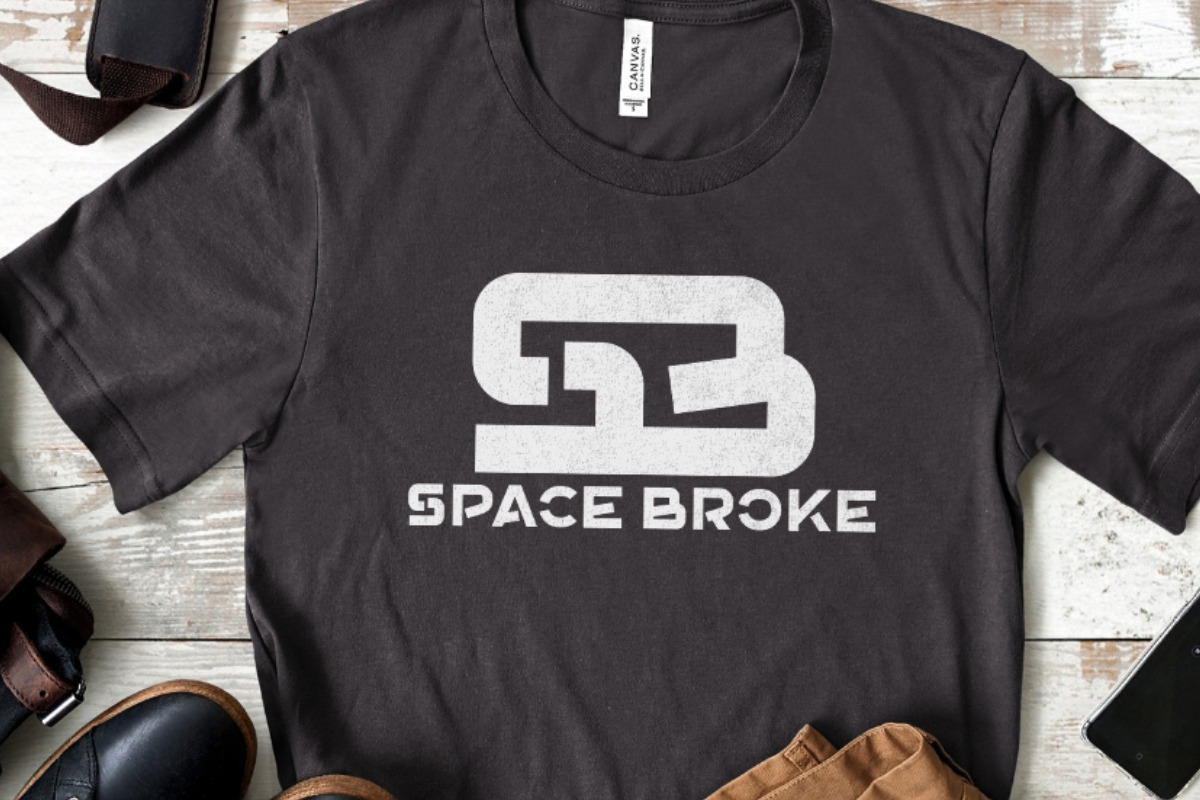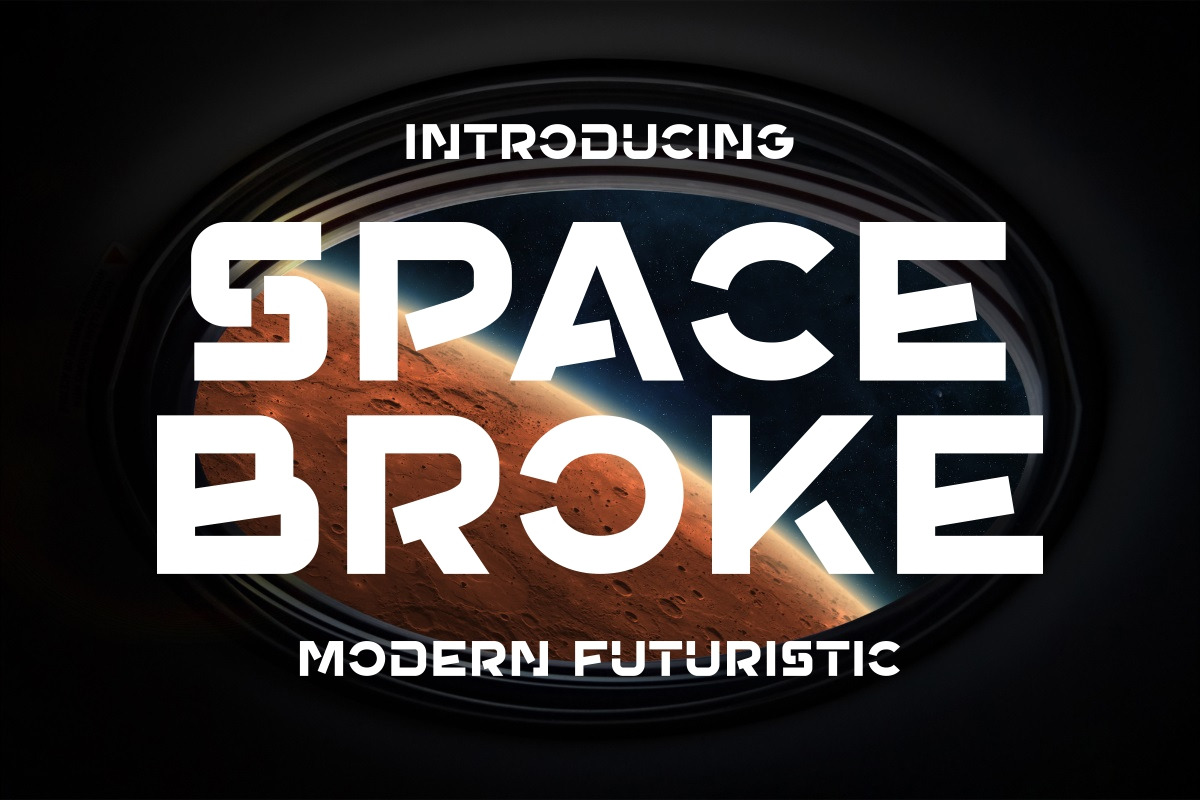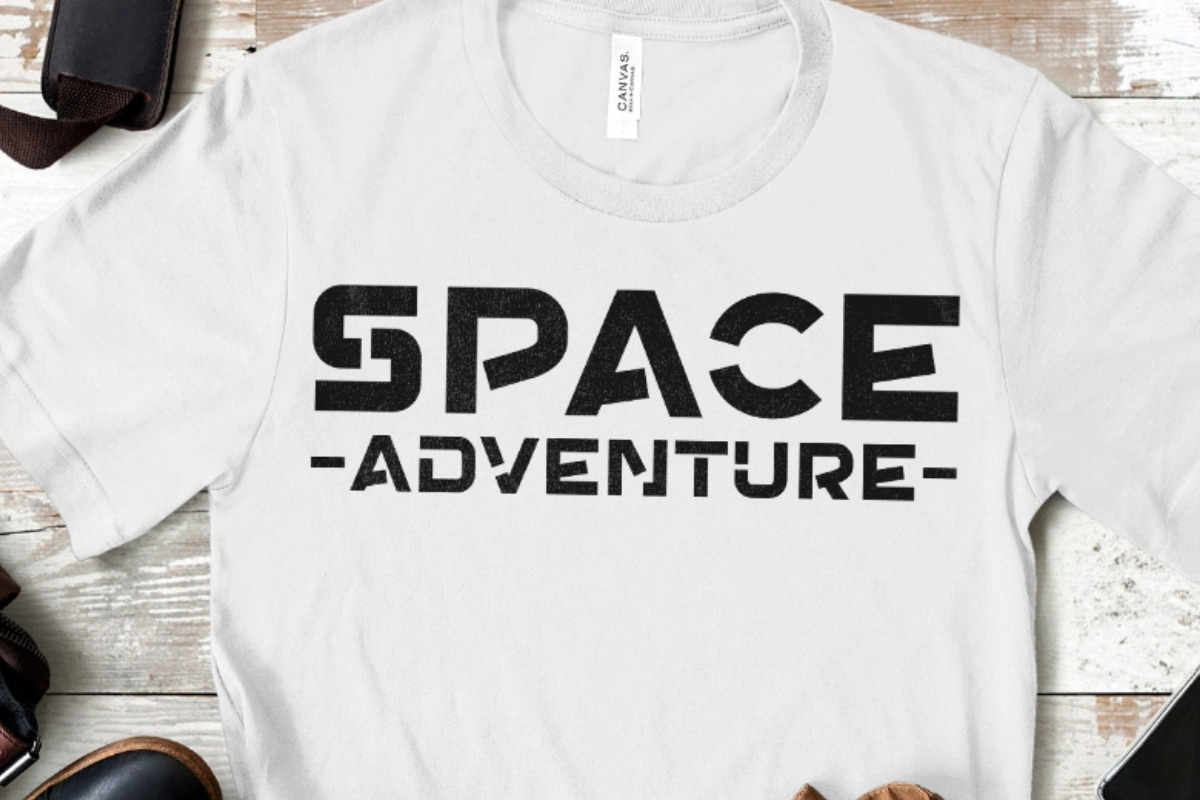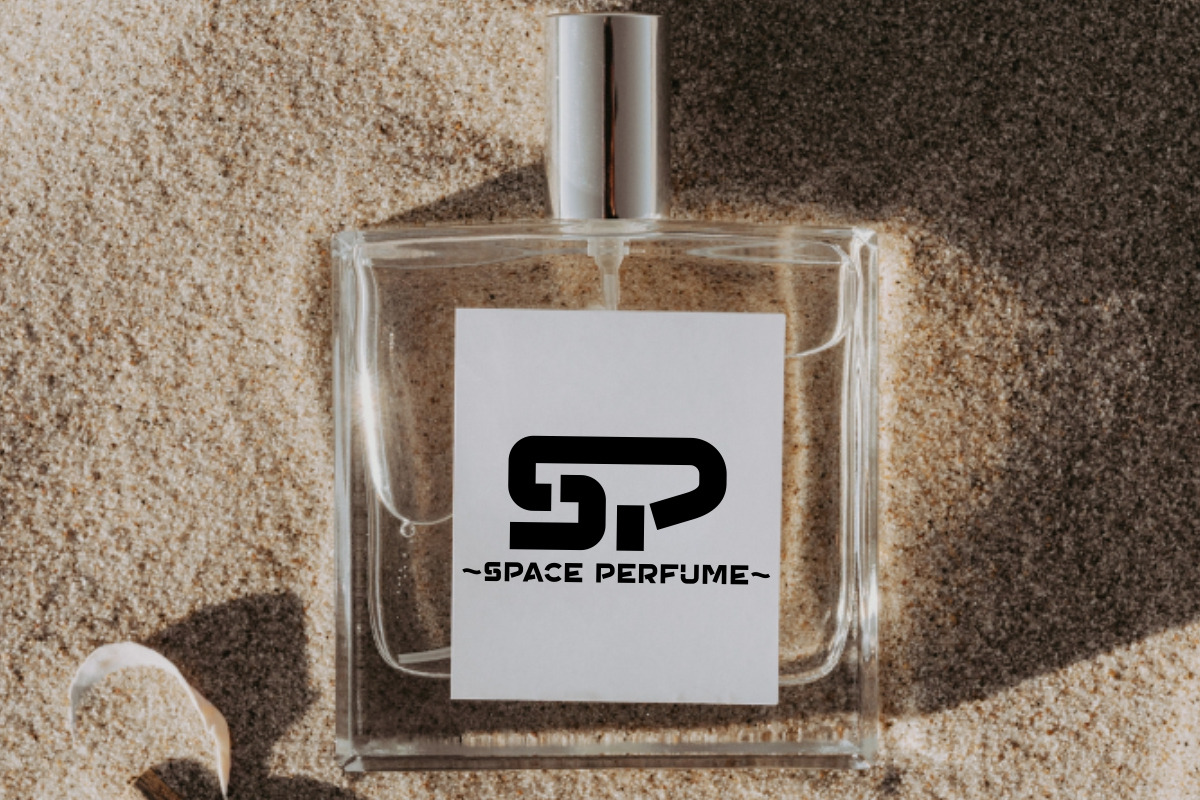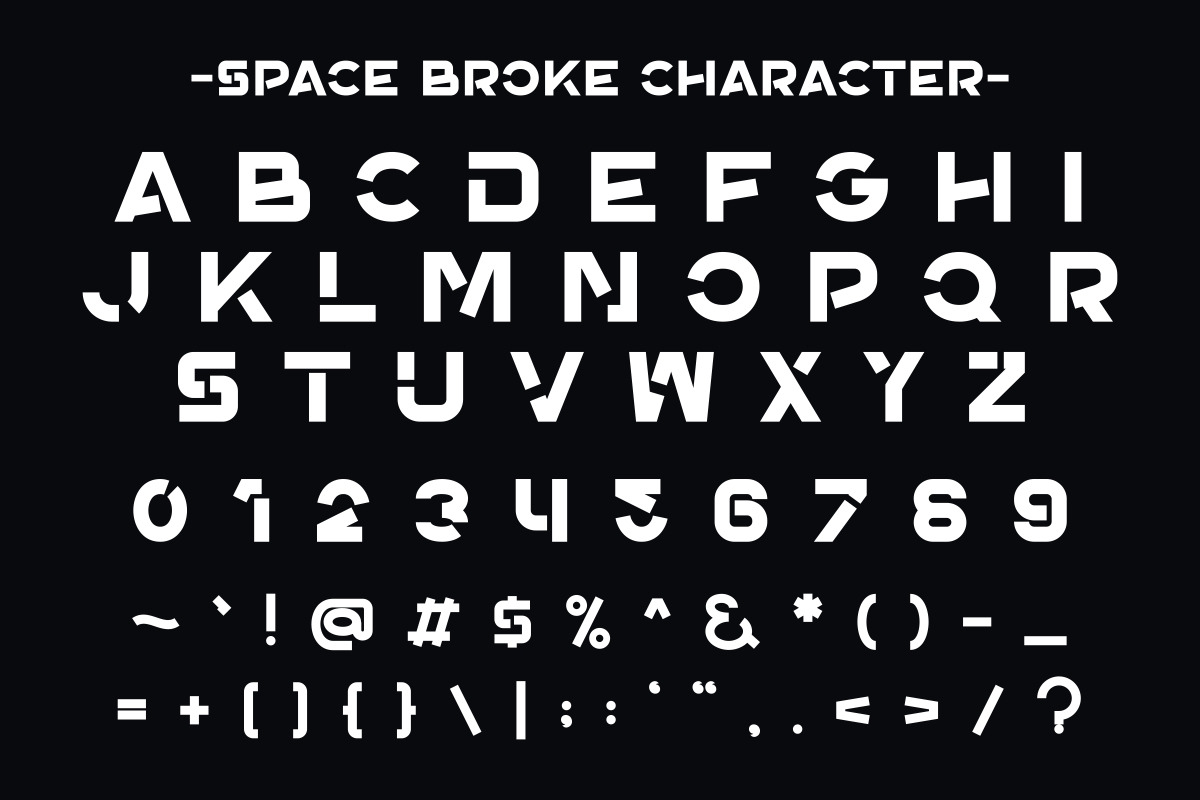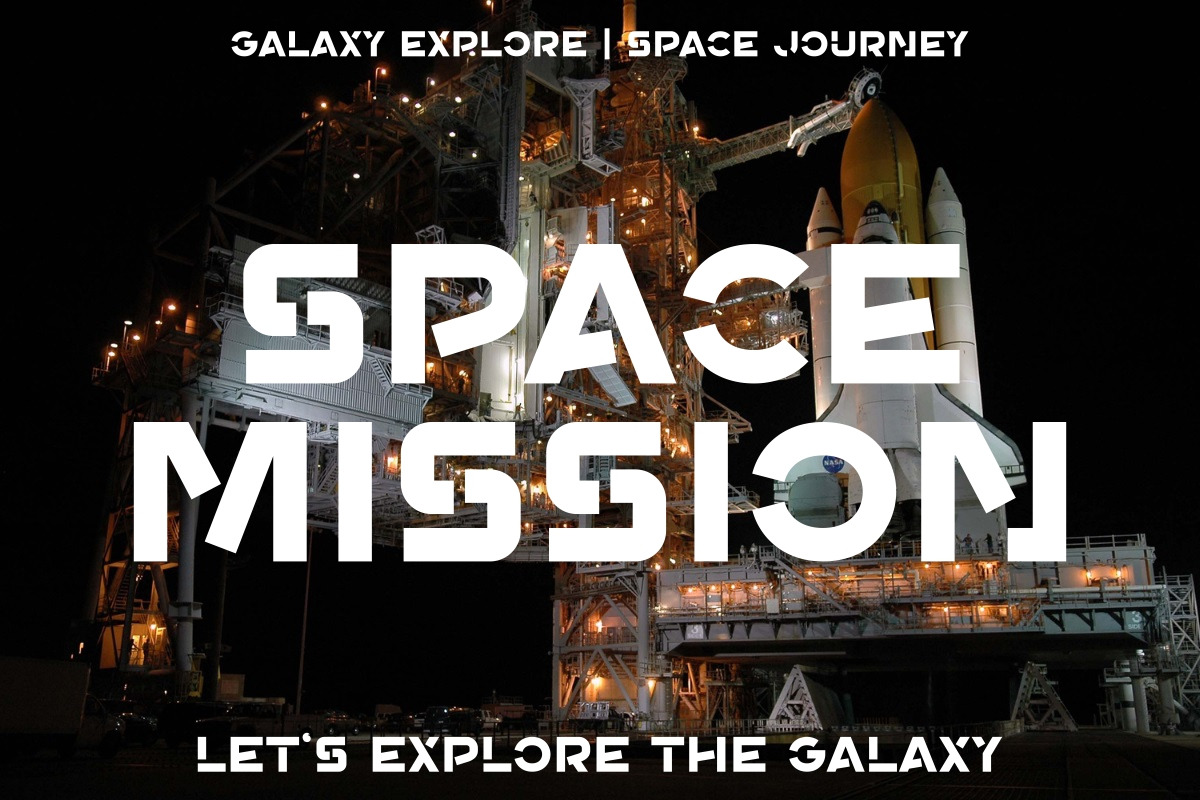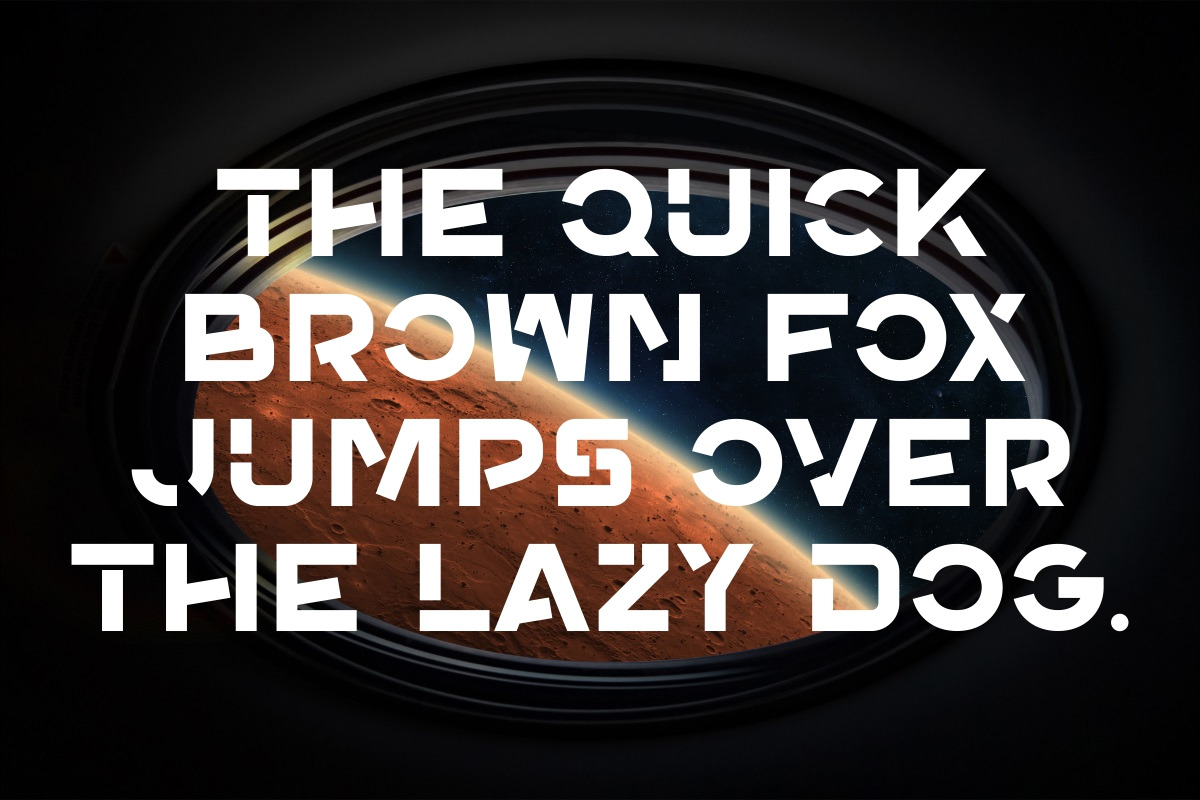
Space Broke - Modern Futuristic Font
Space Broke is a modern futuristic display font with an edgy twist. This font breaks the boundaries of traditional typography with its bold and innovative style, perfectly capturing the essence of the future and outer space.